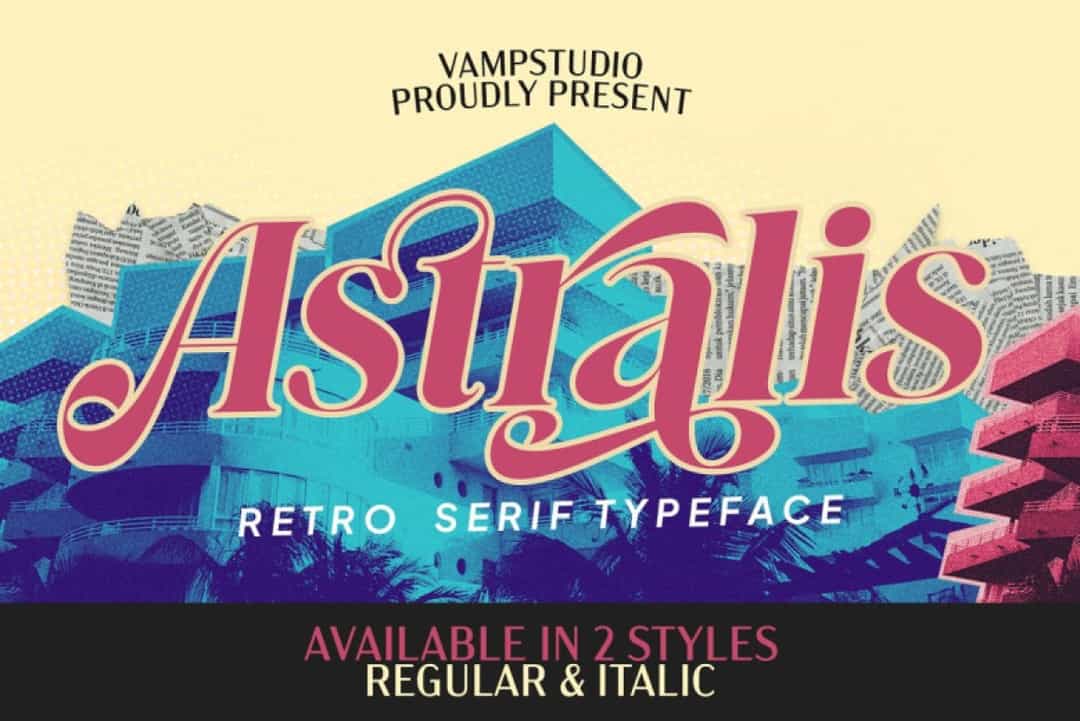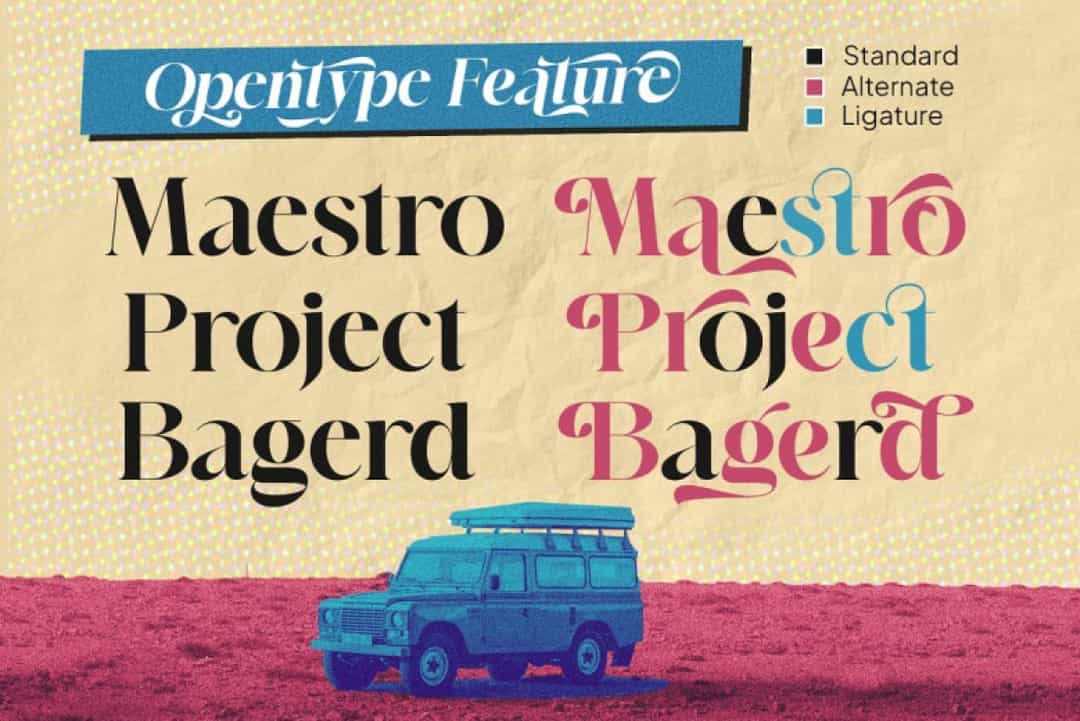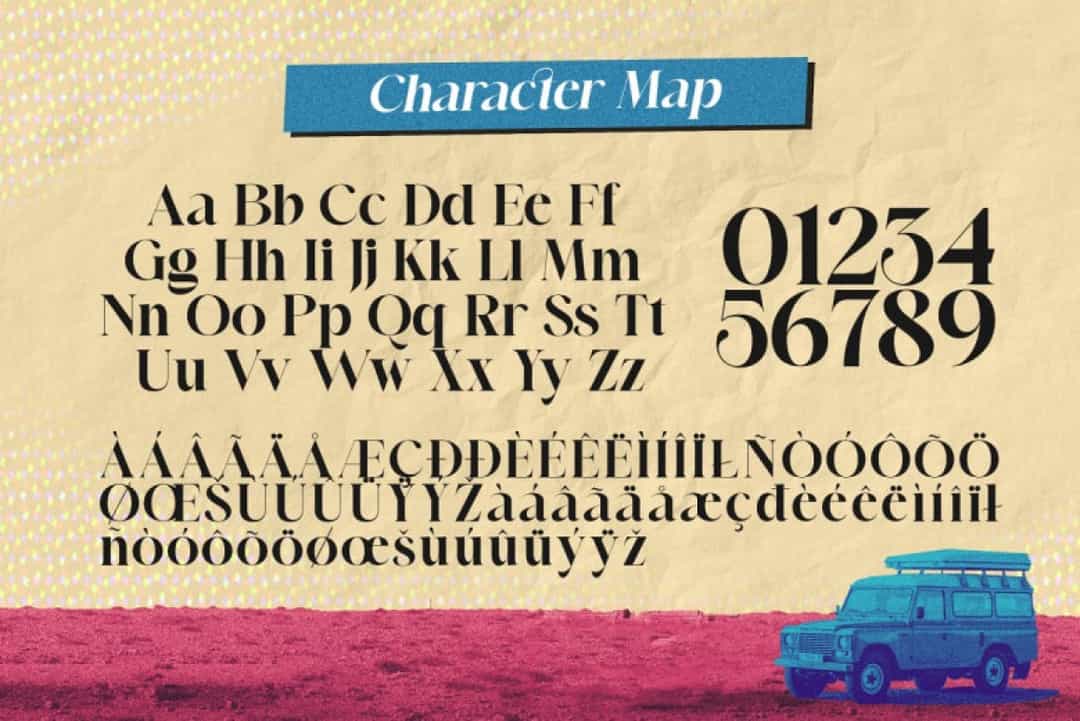
“Astralis Retro Display Serif Font” Is Now Out! – Relive Nostalgia of the Past in Typography! Take a trip down memory lane with “Astralis,” an engaging retro display font designed to bring nostalgia and the charming charm of times gone by into your designs.